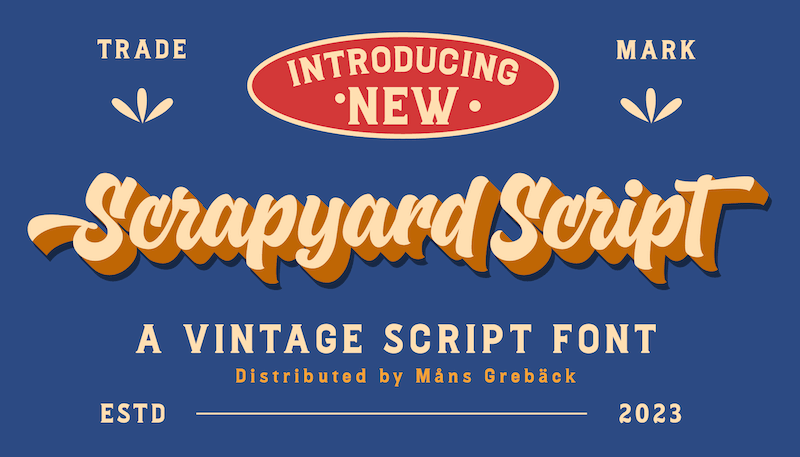
Font name: | Scrapyard Script |
NOTE: This font is for PERSONAL USE ONLY! To purchase a commercial license, visit: http://mn.sg/scrapyard-script Scrapyard Script is a bold, heavy font with a cool and funky vibe that captures the essence of street style and urban culture. Use multiple _ � # to make swashes of different lengths. Example: Rockstar____ (Download required.) For questions, please visit www.mn.sg/faq |